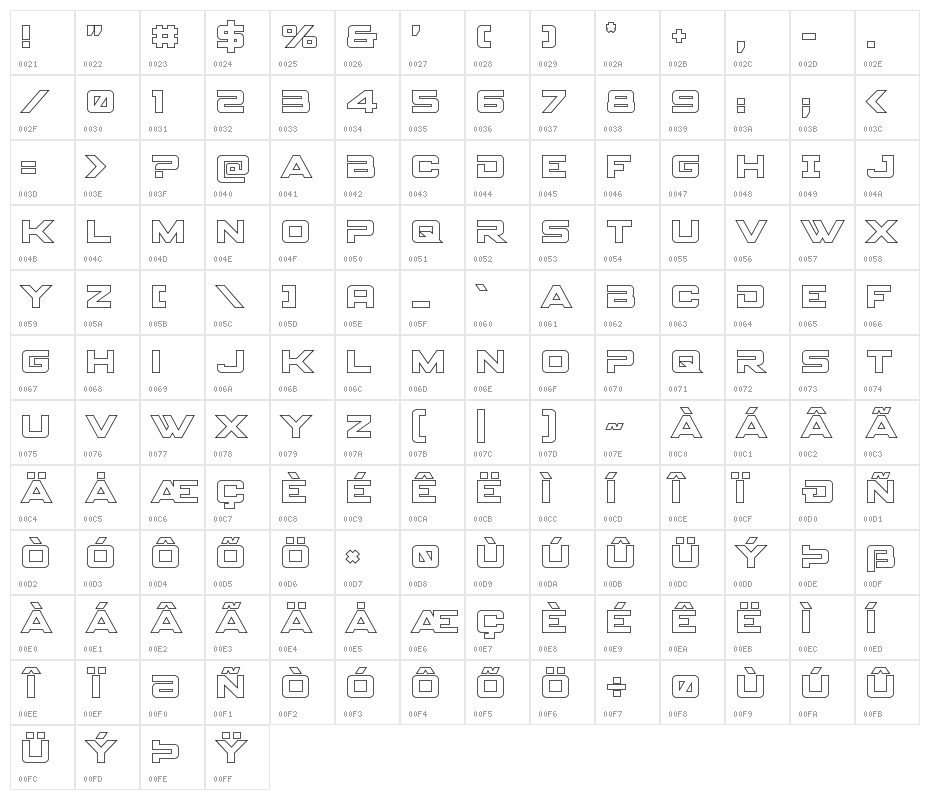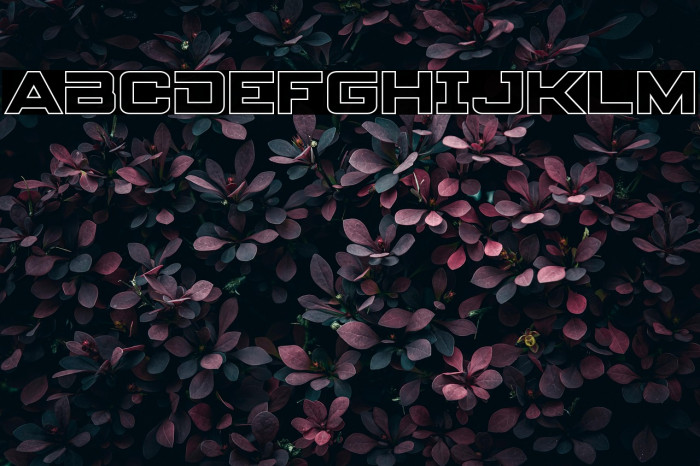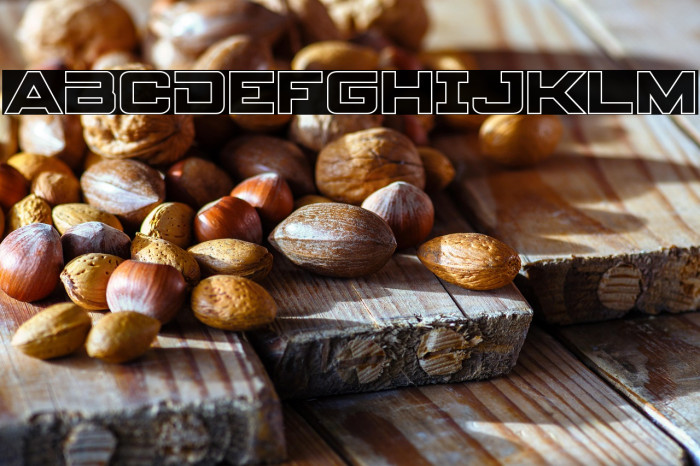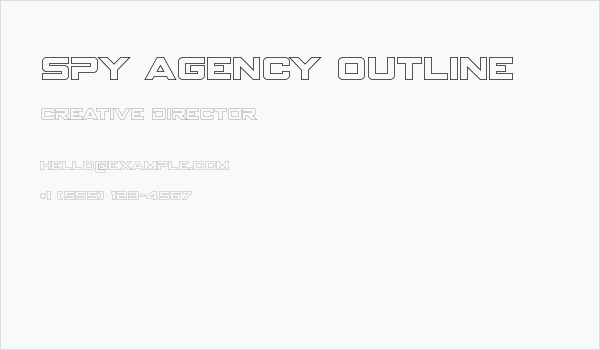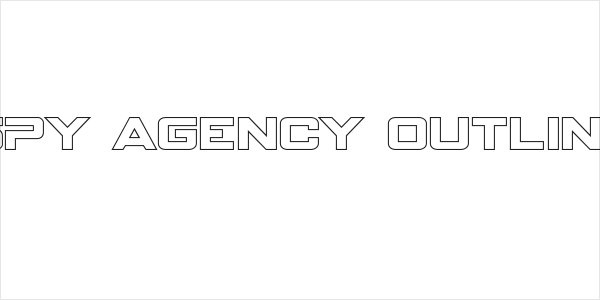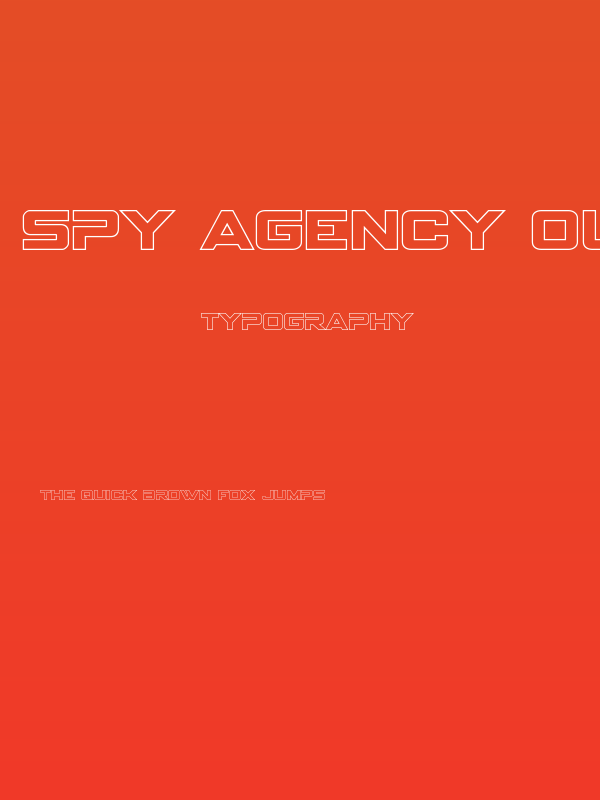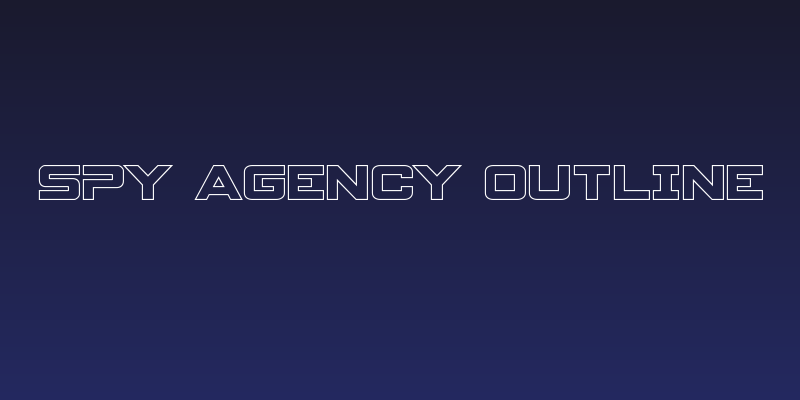
Spy Agency Outline Font
Spy Agency Outline Description
This font features a bold, geometric outline style that gives it a futuristic and tech-inspired appearance. The characters are constructed with clean, angular lines and sharp edges, creating a sense of precision and modernity. The uppercase letters are uniform in height, while the numbers and special characters maintain the same structured aesthetic. The overall design is minimalistic yet striking, making it suitable for projects that require a contemporary and edgy look.